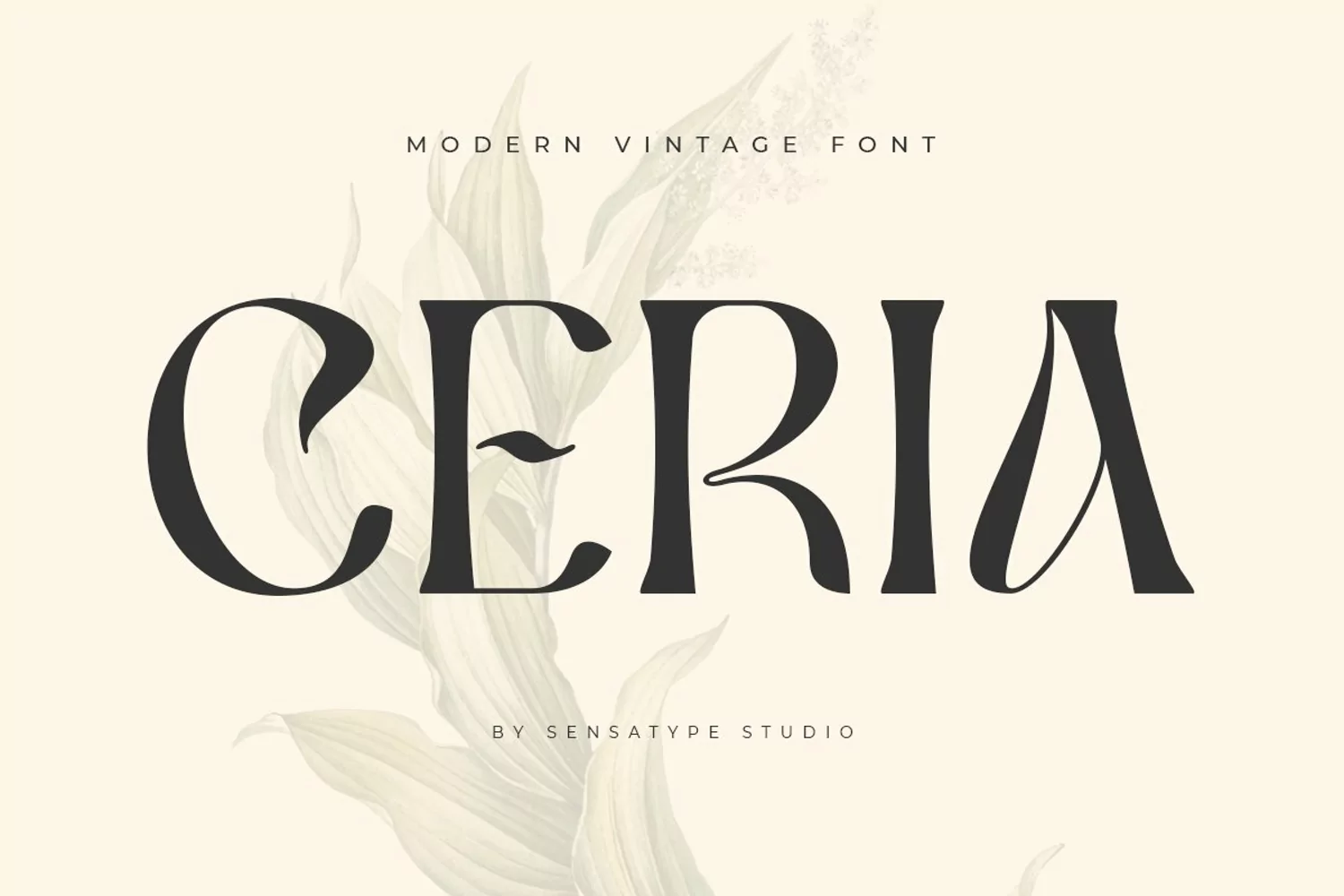
Ceria is a Modern Vintage Display Font
A New Vintage font that we created special for Unique branding needs, with extra ligature in unique style that ready to add value of your brand. It's so nice to leverage designer or product owner that need solutions to make their design look more unique and vintage.